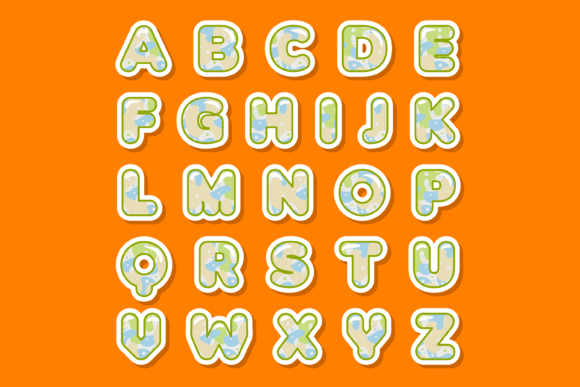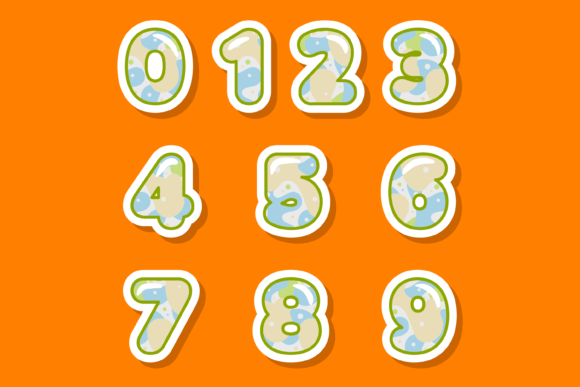
Discover the Vibrant World of Alyssa Font: Elevate Your Designs with a Unique Abstract Pattern
Are you on the lookout for a font that adds a pop of color and a dash of uniqueness to your designs? Look no further than the Alyssa Font, an incredibly cool color font that boasts a stunning abstract pattern. This versatile font is perfect for designers, crafters, and DIY enthusiasts seeking to infuse their creations with a lovely touch. Whether you’re working on custom designs, DIY crafts, or any project that requires a bit of flair, the Alyssa Font is an amazing choice.
What Makes Alyssa Font Stand Out?
The Alyssa Font is not just any ordinary font. It’s a color font, specifically an Opentype-SVG, which means it’s capable of displaying a wide range of colors and gradients, giving your text and designs a vibrant, multi-dimensional look. This unique feature sets it apart from traditional fonts, which are usually limited to a single color.
Unlocking the Full Potential of Alyssa Font
To truly harness the creative power of the Alyssa Font, it’s crucial to understand how to use it effectively. Here are a few tips to get you started:
- Experiment with Colors: One of the font’s standout features is its ability to display multiple colors. Play around with different color combinations to find the perfect palette for your project.
- Mix and Match: Don’t be afraid to mix and match the Alyssa Font with other fonts or design elements. Its unique pattern can add depth and interest to any composition.
- Consider the Theme: Think about the theme or mood of your project. The abstract pattern of the Alyssa Font can be tailored to fit a wide range of themes, from playful and whimsical to sophisticated and elegant.
Why Choose Alyssa Font for Your Projects?
There are many reasons why the Alyssa Font should be your go-to choice for your next project:
- Unique Designs: The abstract pattern of the Alyssa Font ensures that your designs will stand out from the crowd.
- Versatility: Its compatibility with various design software and its suitability for a range of projects make it an incredibly versatile font.
- Easy to Use: With the right guidance, using the Alyssa Font is straightforward, even for those new to color fonts.
The Alyssa Font is a game-changer for designers and crafters looking to add a unique, colorful touch to their projects. Its compatibility with major design software, coupled with its stunning abstract pattern, makes it an invaluable addition to any creative toolkit. By understanding how to use this versatile color font, the possibilities are endless. So why wait? Unlock the full potential of your designs with the Alyssa Font today.